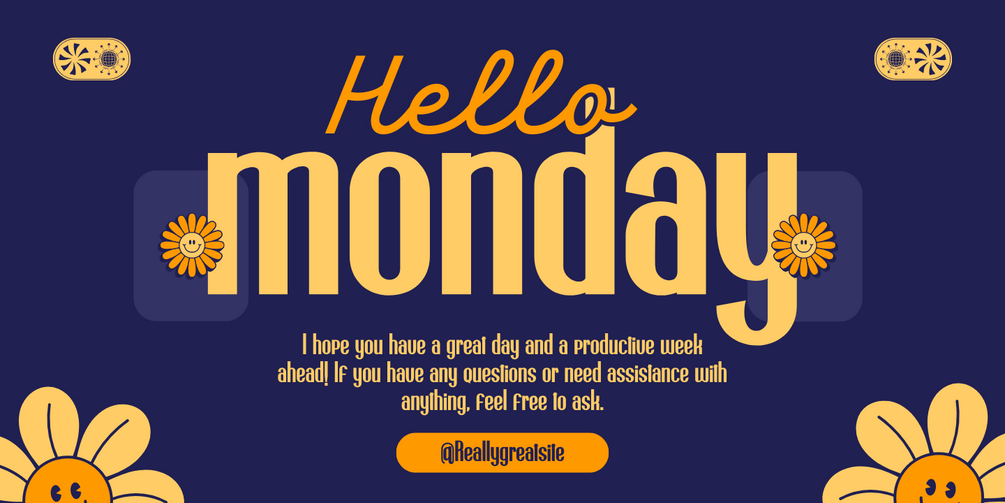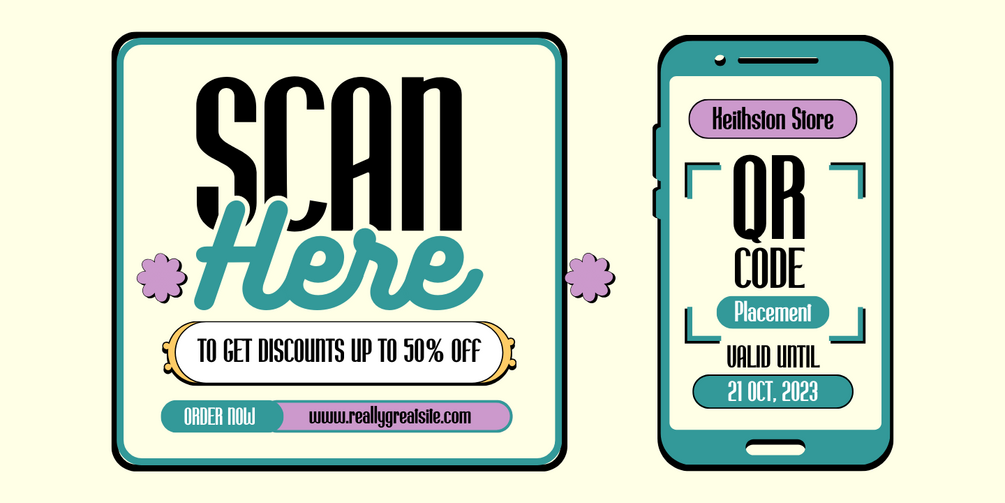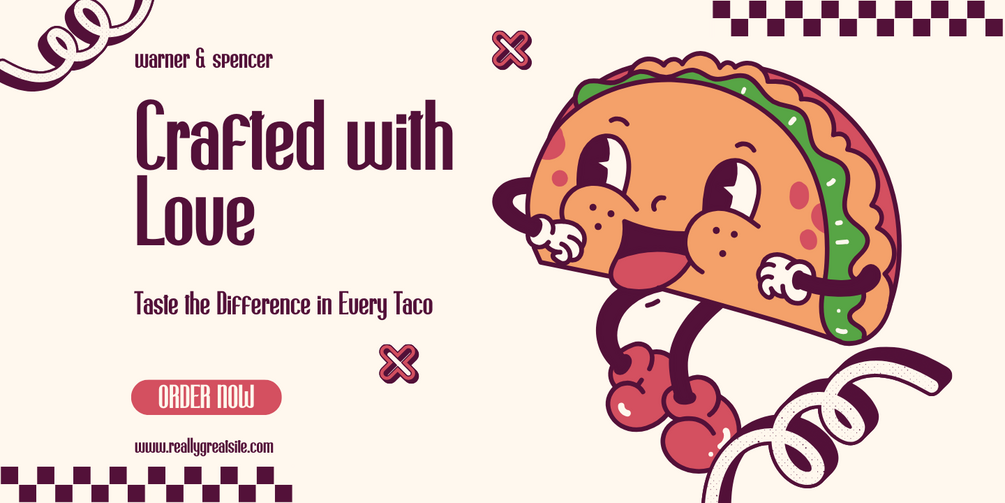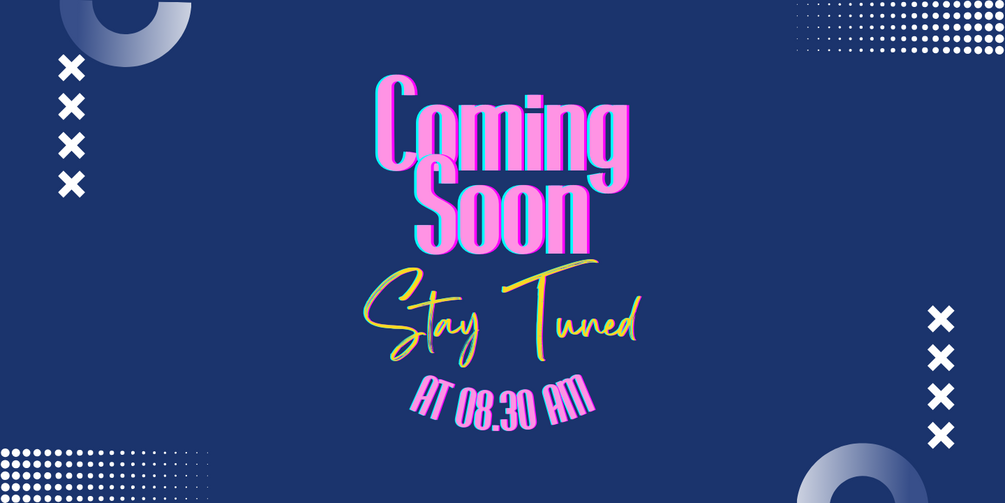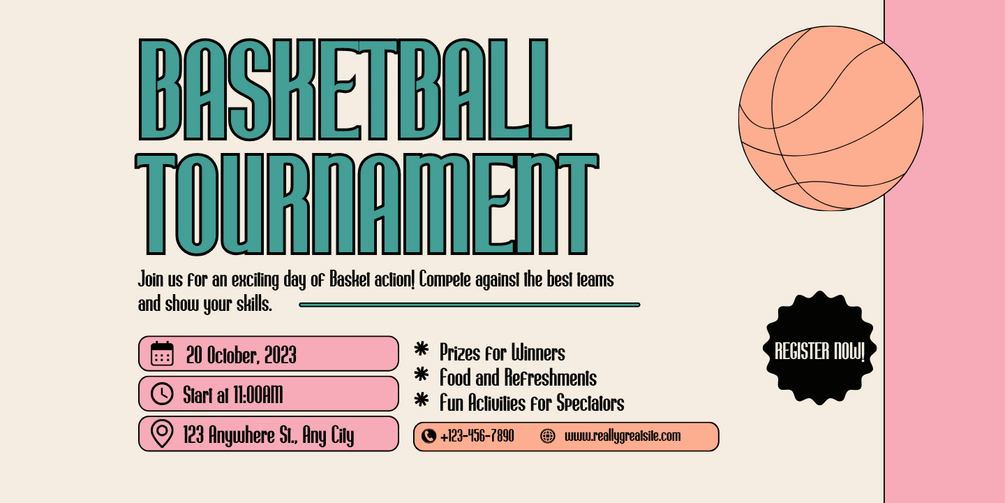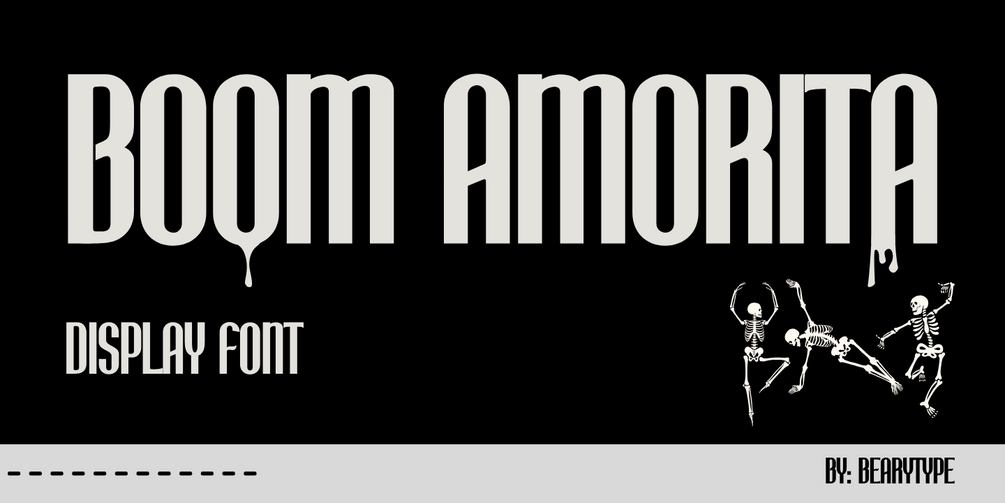
Display Font | Boom Amorita
Want your designs to look elegant and modern—without sacrificing personality?
Meet Boom Amorita – where style meets substance in one exquisite typeface.
Boom Amorita is more than just a font – it's a bold statement wrapped in graceful curves and refined charm. Whether you're crafting branding projects, stylish logos, wedding invitations, or social media content, this font brings your vision to life with unmatched sophistication.
✔️ Modern elegance
✔️ Unique personality
✔️ Versatile for both print and digital use
Let Boom Amorita be the secret ingredient that transforms your ordinary text into a visual masterpiece.